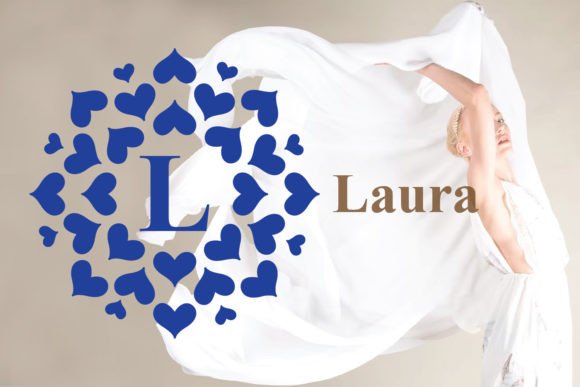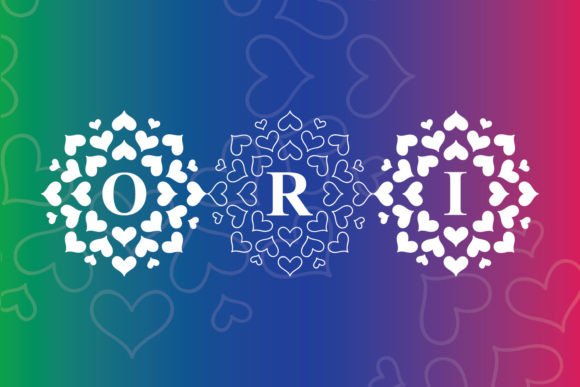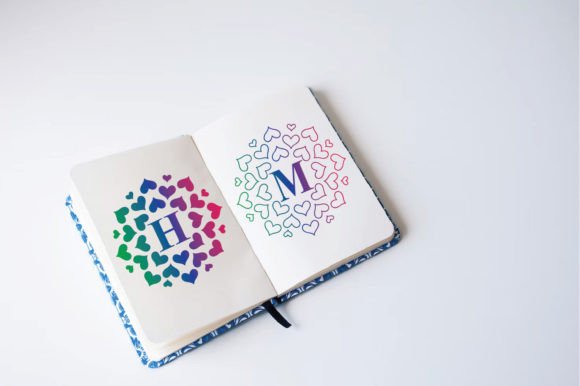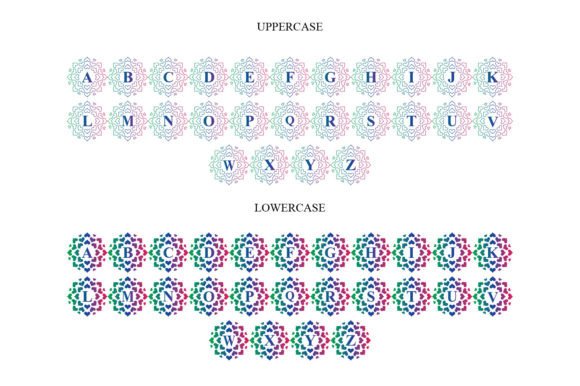
Introduction to Mandalove Font
Mandalove is a unique and intricate monogram decorative font.
Add this elegant font to each of your love letters, or favorite design ideas, and you will be astounded by the outcome generated .
Key Features of Mandalove Font
Why Choose Mandalove Font?